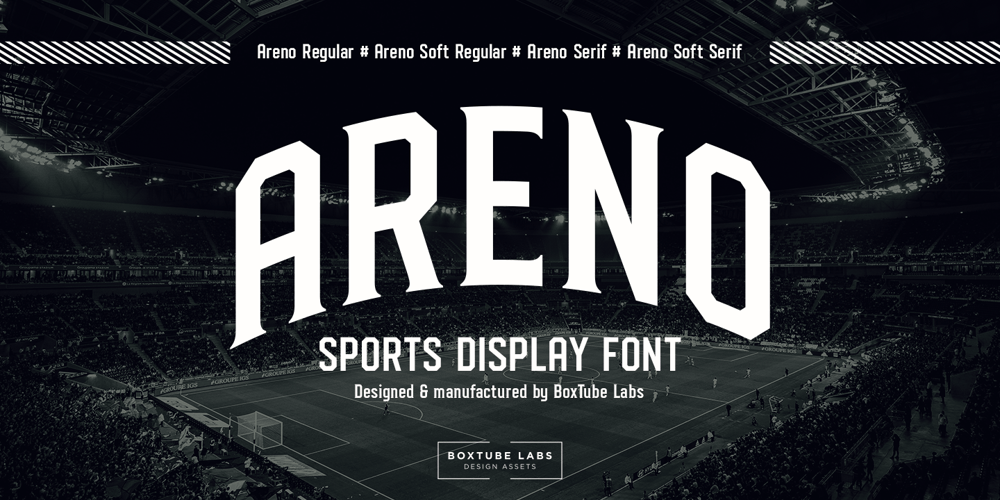
Areno
Areno font
Areno Font Family was designed by Tobias Alexandersson and published by BoxTube Labs. Areno contains 4 styles and family package options. Areno was our first ever font family, released in 2017. We’ve learned a lot since then and made the decision to redraw it from scratch with improved letterforms, better readability and added language support. Most adjustments are very subtle, but some glyphs have gotten a complete makeover. We’ve also added lowercase letters to the family.Areno is a strong and bold sports block font. These fonts are perfect for sports logos, branding, posters, apparel design, magazine headlines, labels and so much more.Areno now features a full Adobe Latin 1 Character Set with support for most Western European languages including Afrikaants, Basque, Breton, Catalan, Danish, Dutch, English, Finnish, French, Gaelic, German, Icelandic, Indonesian, Irish, Italian, Norwegian, Portuguese, Sami, Spanish, Swahili and Swedish.